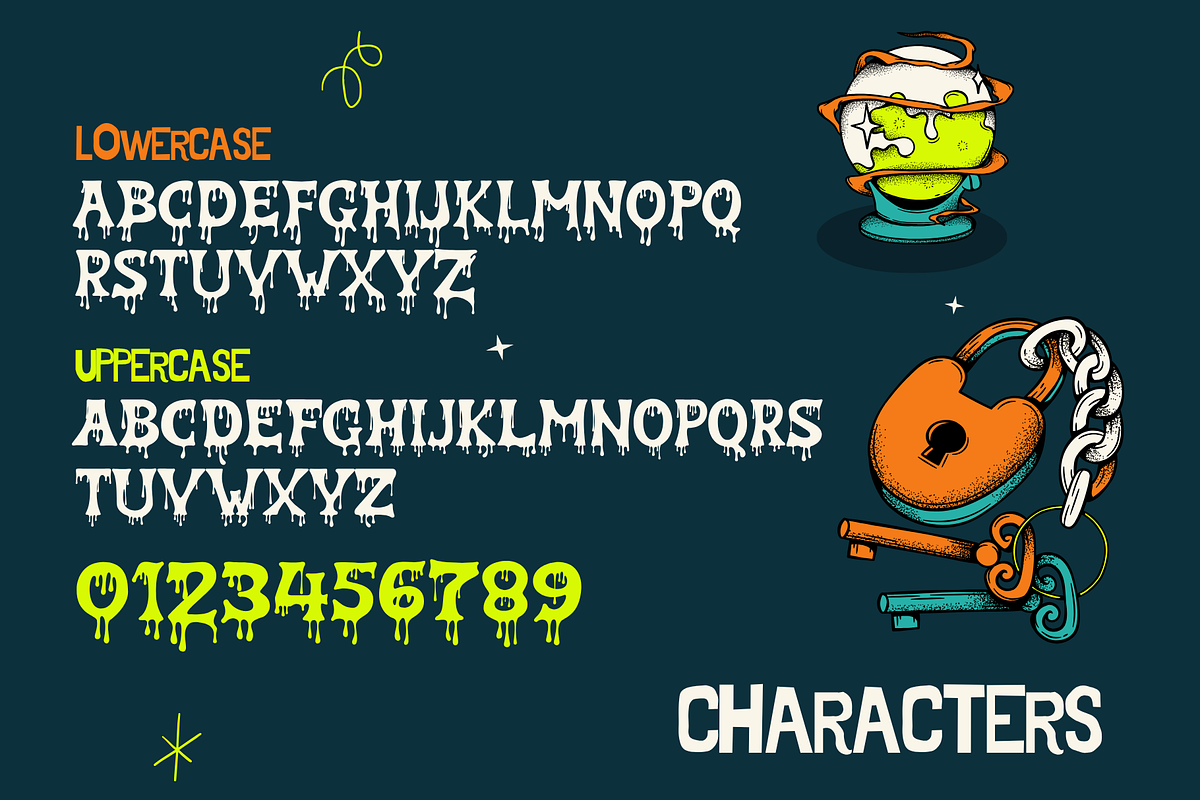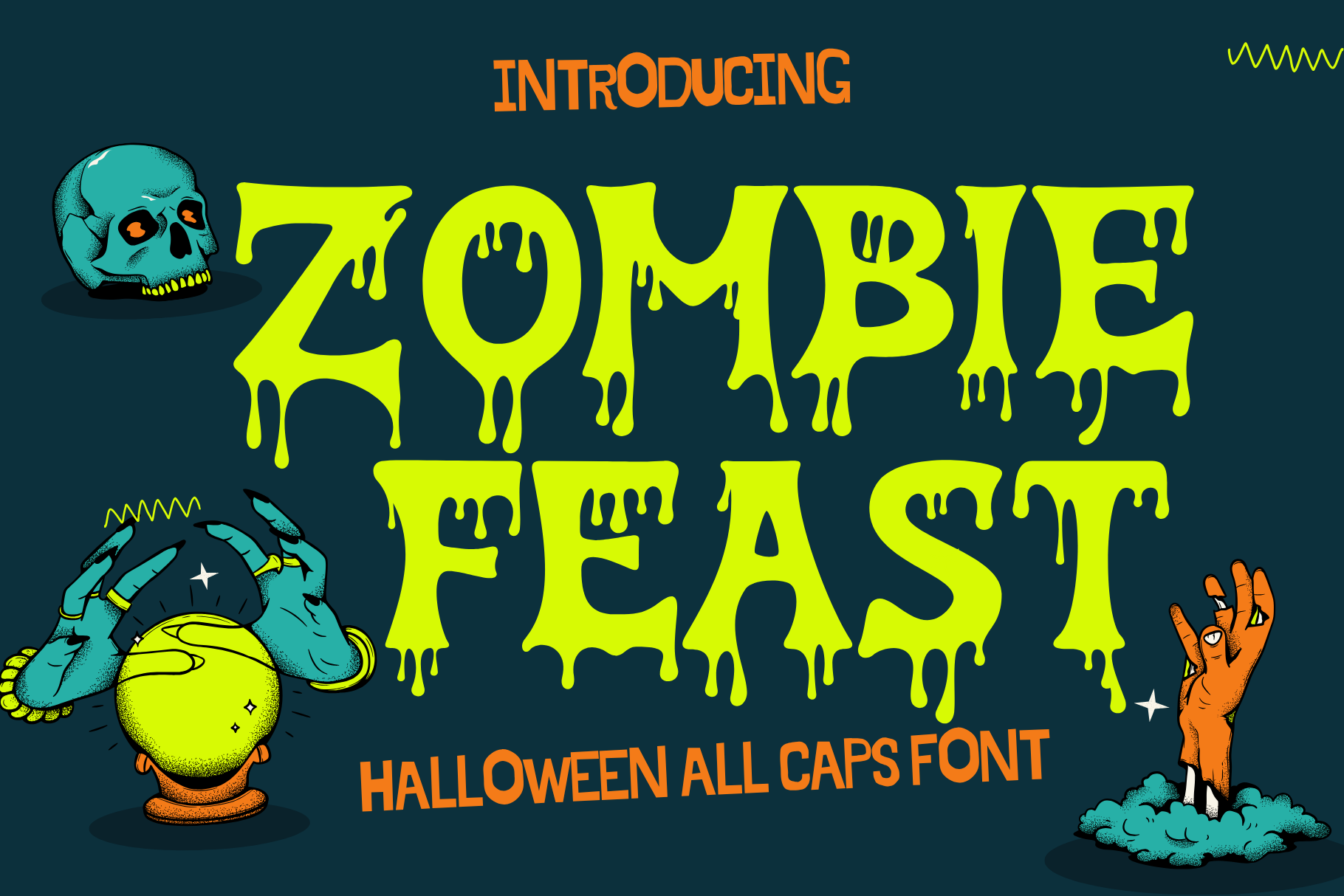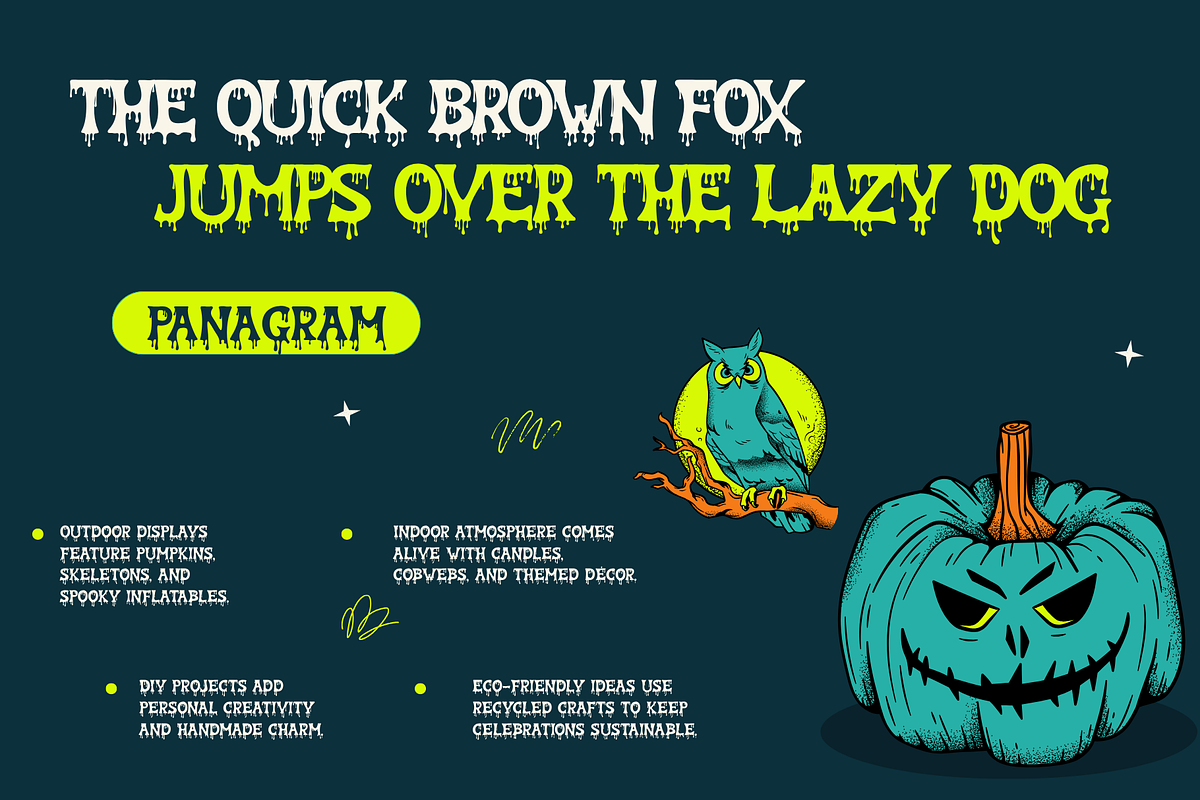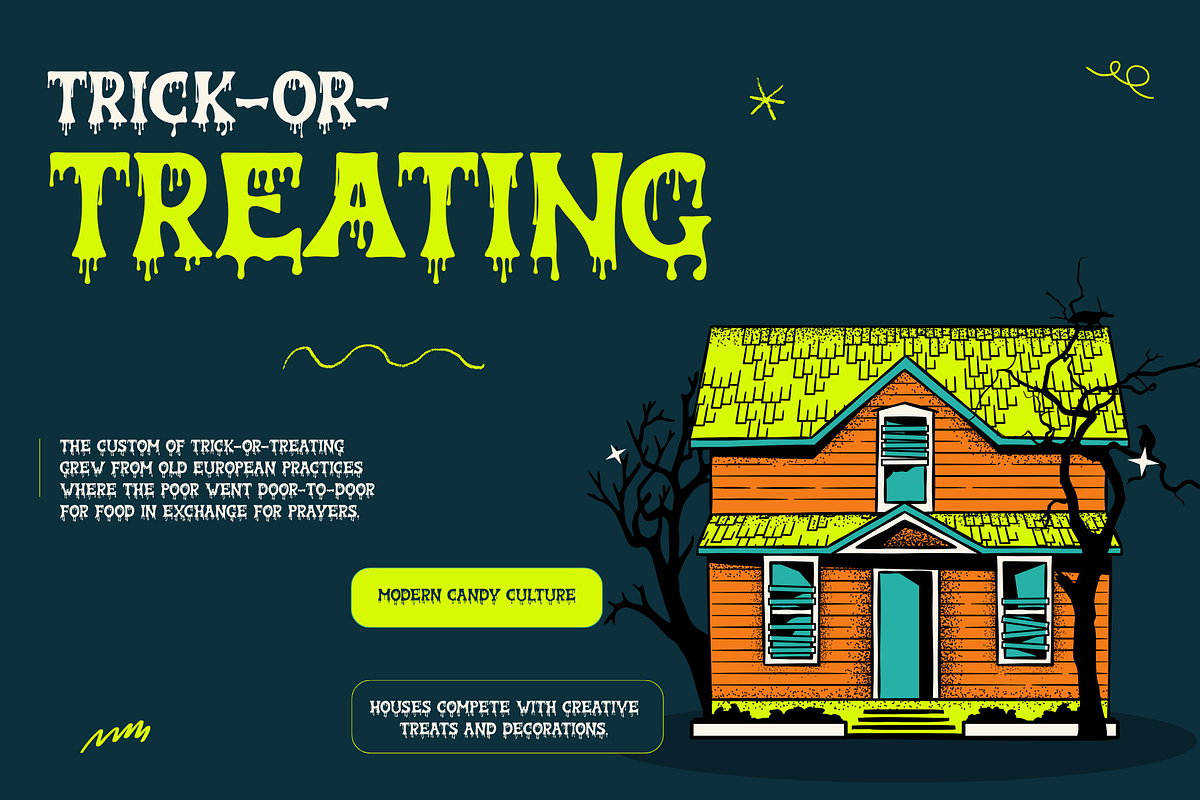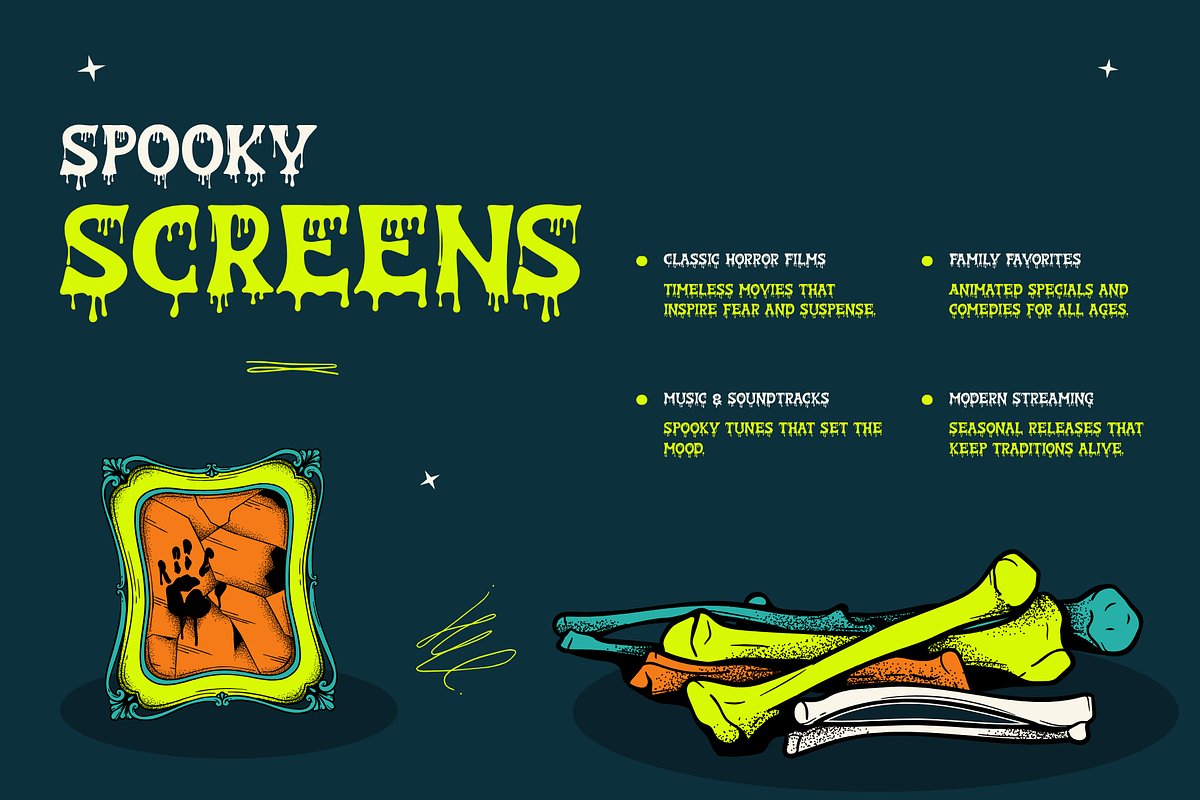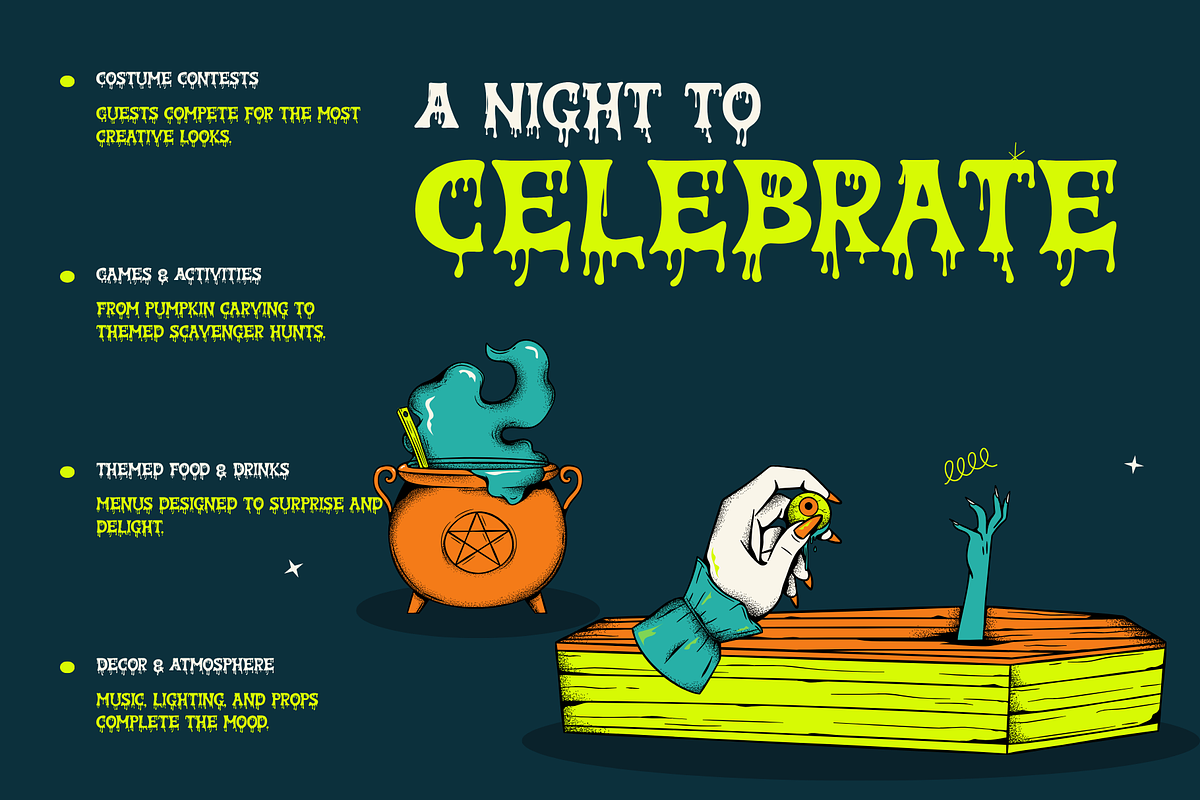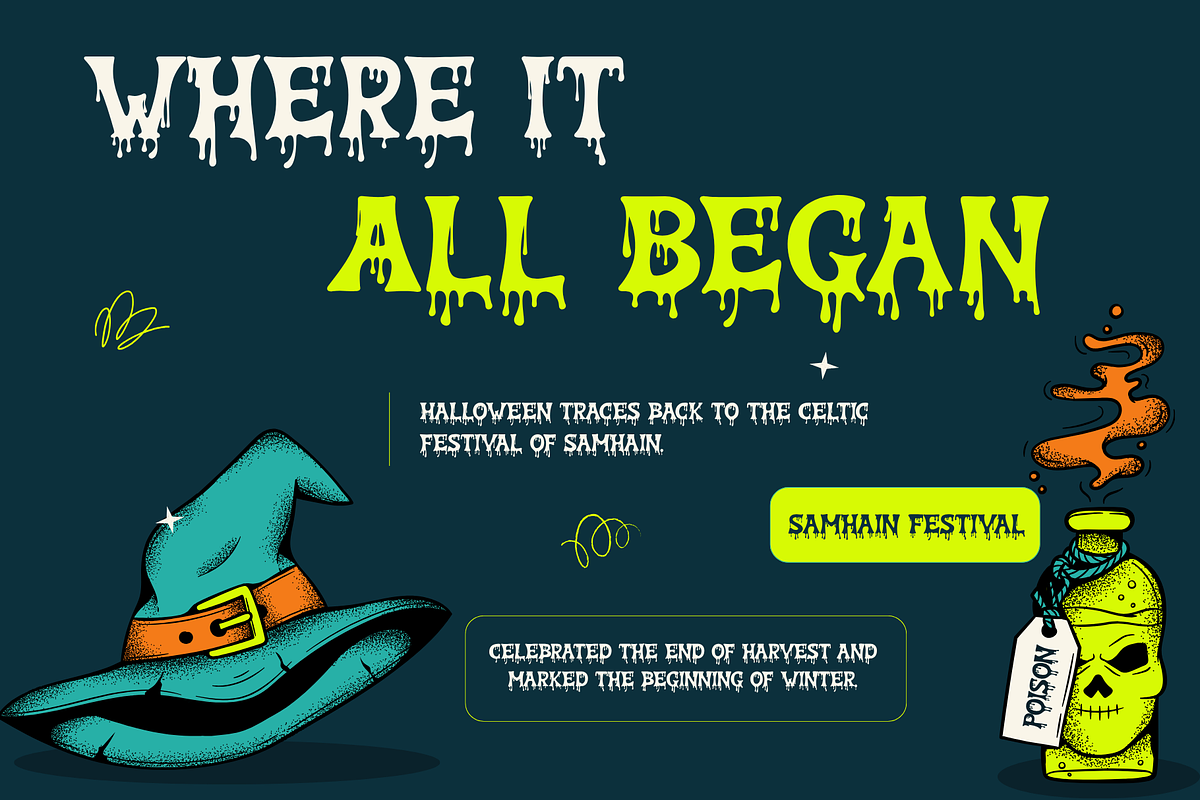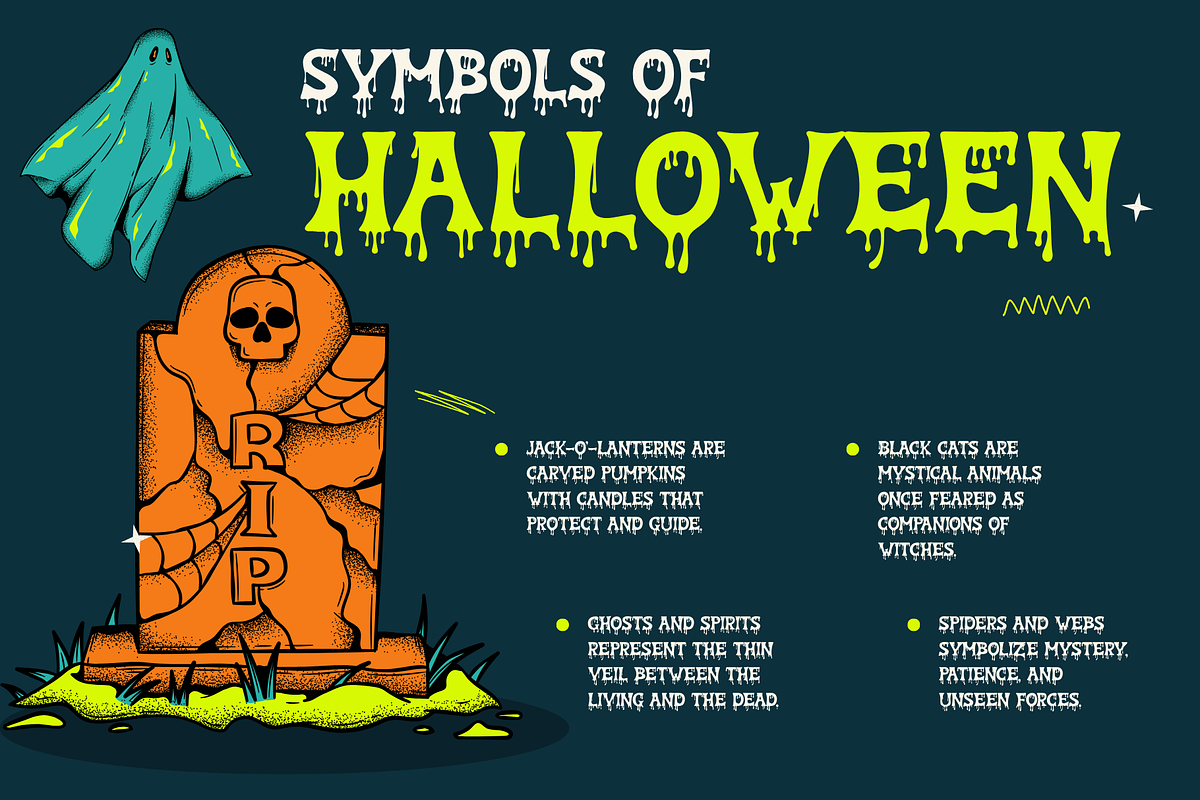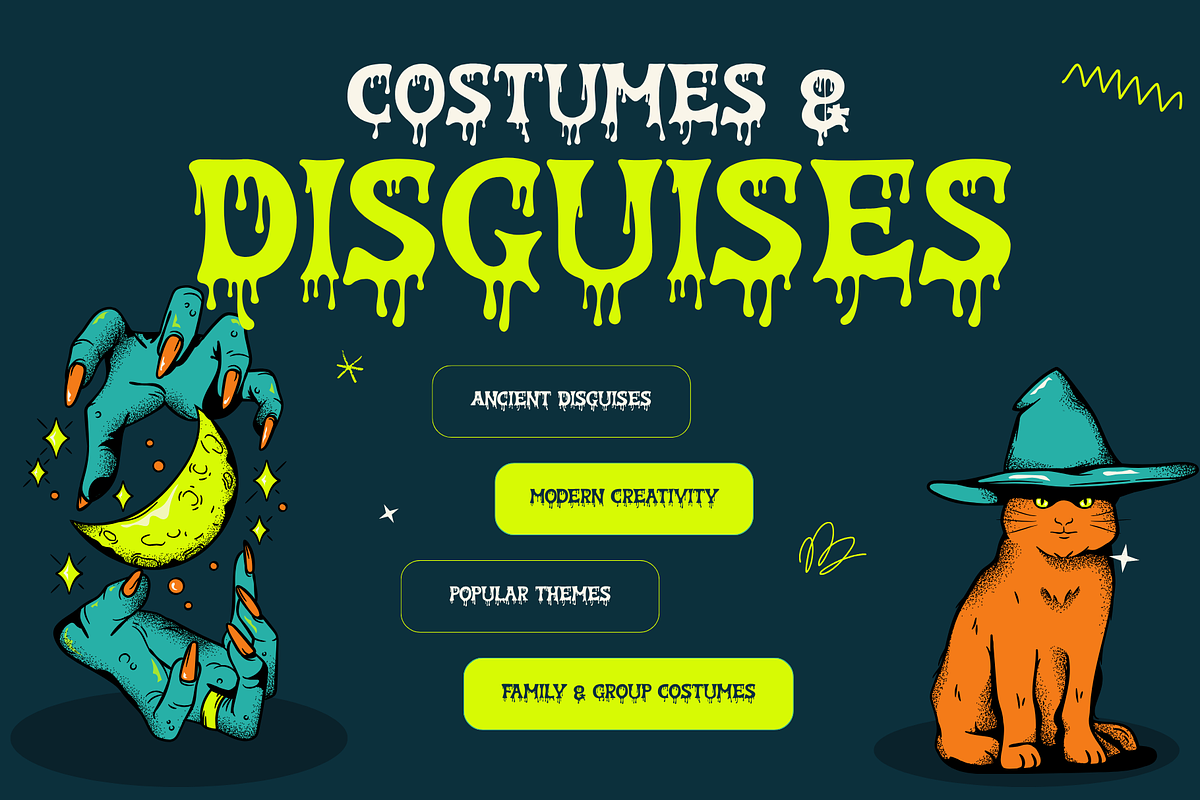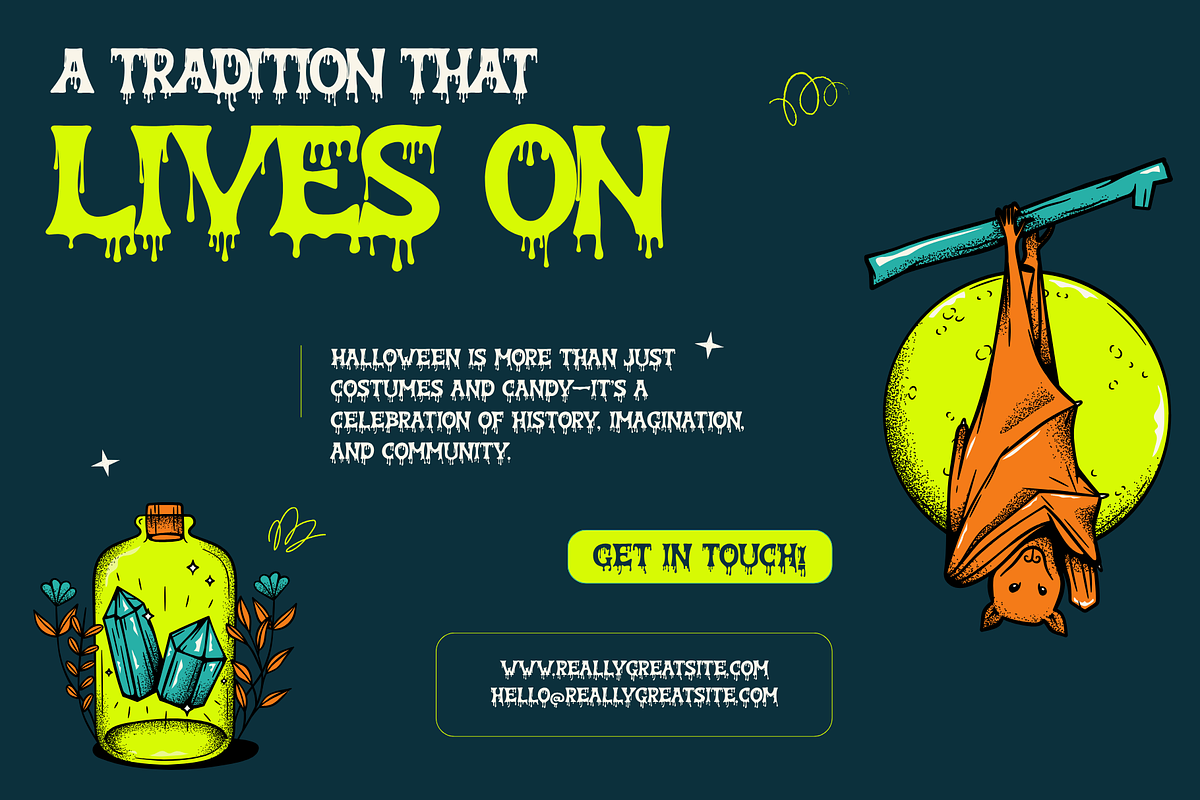
Zombie Feast – Horror Dripping Font
Zombie Feast – Horror Dripping Font (ALL CAPS) for Posters, Games, Halloween & Scary Designs
Zombie Feast is an ALL CAPS horror font with a bold dripping blood effect that instantly grabs attention. Perfect for zombie themes, Halloween designs, horror movies, survival games, spooky party posters, thriller covers, creepy YouTube thumbnails, merchandise, and eerie logos.
With thick, sharp, and melting letterforms, this font delivers an intense dark, gothic, and terrifying vibe—just like a classic zombie outbreak scene.
Why Choose Zombie Feast?
- ALL CAPS – Strong and easy to read
- Realistic dripping horror style
- Powerful for titles & headlines
- Works for print & digital
- Ready to use, no extra editing
- Halloween / Zombie Party Posters
- Horror & Survival Games
- Movie & Series Covers
- Spooky Event Banners
- T-Shirt & Merchandise Design
- Stickers, Labels, Packaging
- Dark Social Media Content
💀 Want your design to look extreme and unforgettable? Zombie Feast is a must-have horror font! Bold, scary, and visually striking—perfect to boost attention and atmosphere.